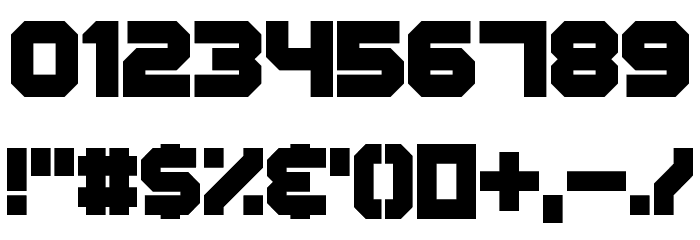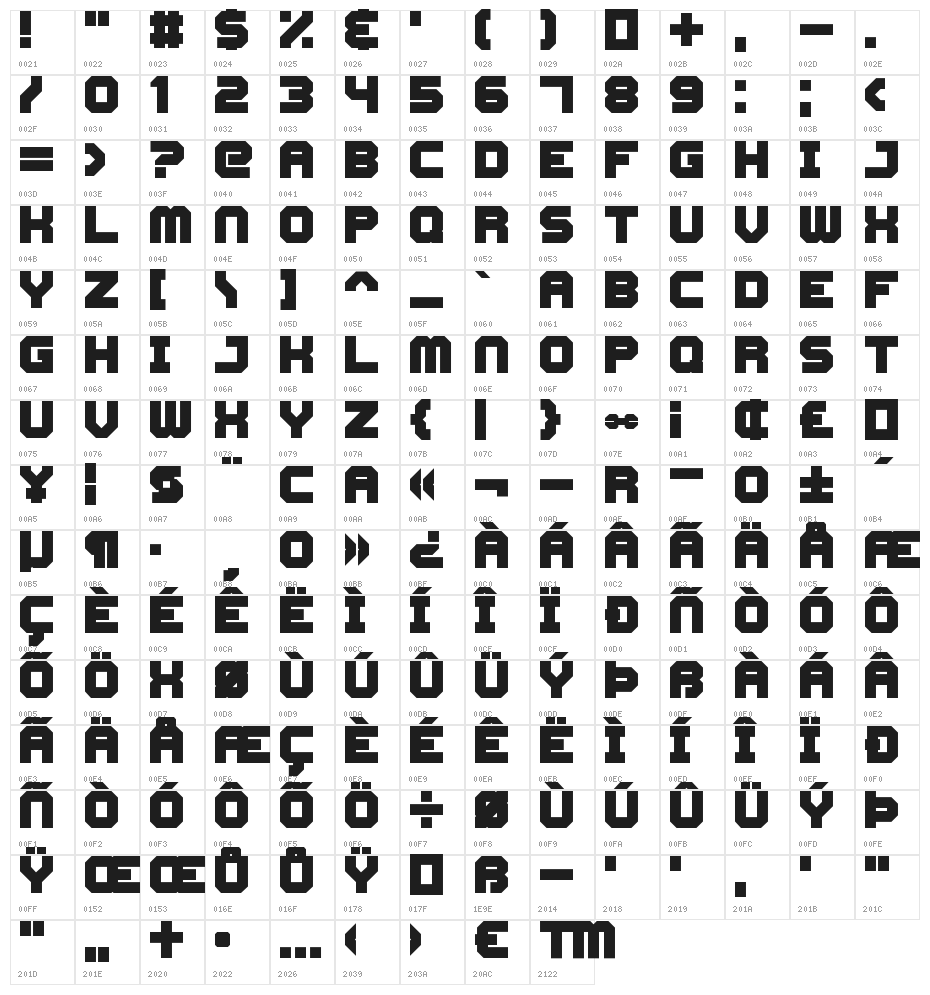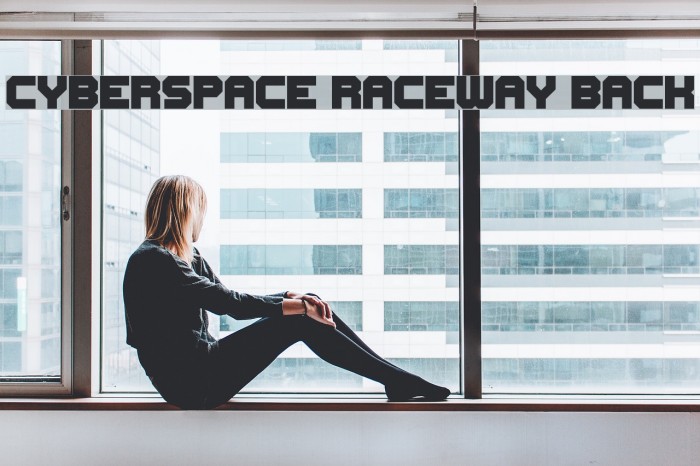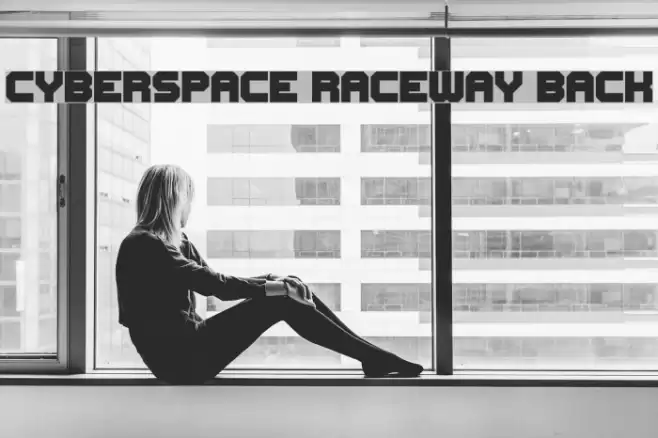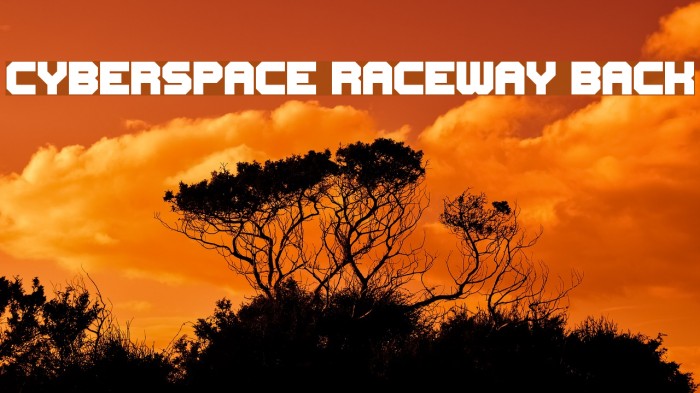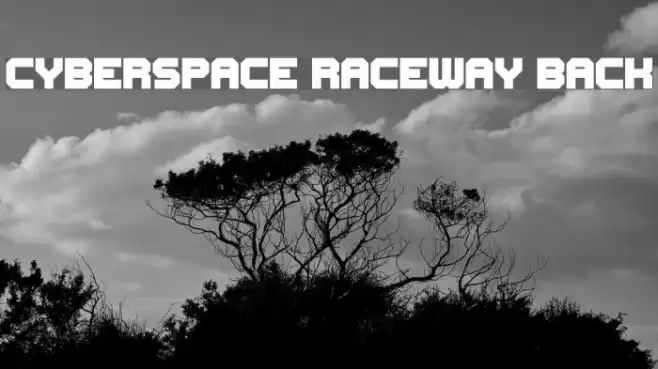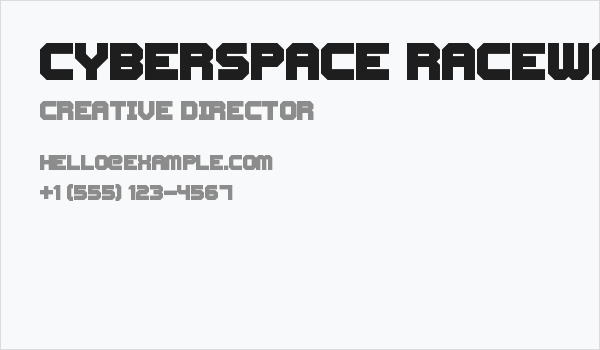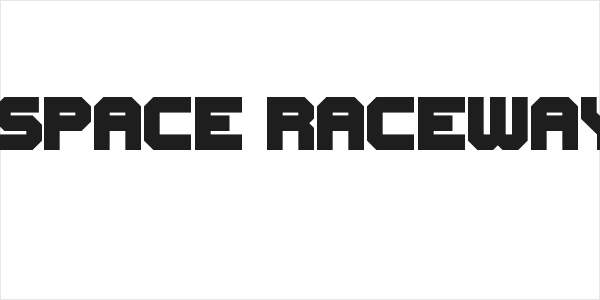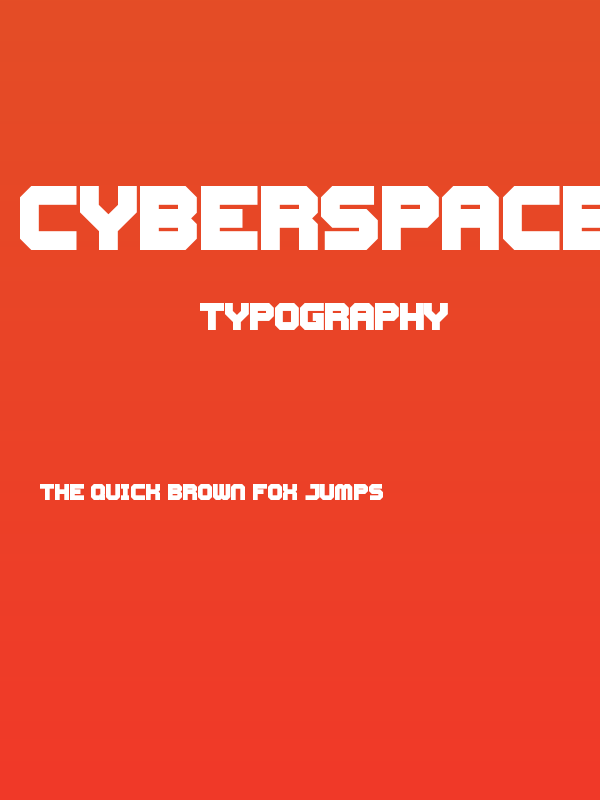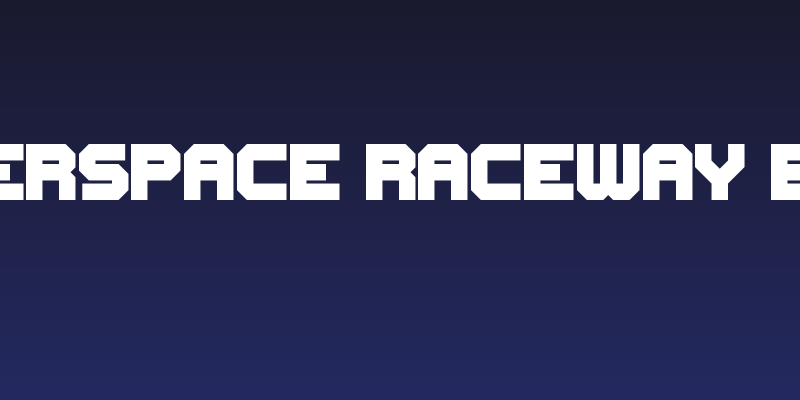
Cyberspace Raceway Back Font
Cyberspace Raceway Back Description
This font features a bold, futuristic design with a distinctly geometric and angular appearance. Each character is crafted with sharp edges and a blocky structure, giving it a strong, impactful presence. The uniformity in stroke width across all characters contributes to a cohesive and modern look. This style is reminiscent of digital or technological themes, making it ideal for projects that require a contemporary and edgy aesthetic. The font's design ensures high readability while maintaining a unique and striking visual appeal.